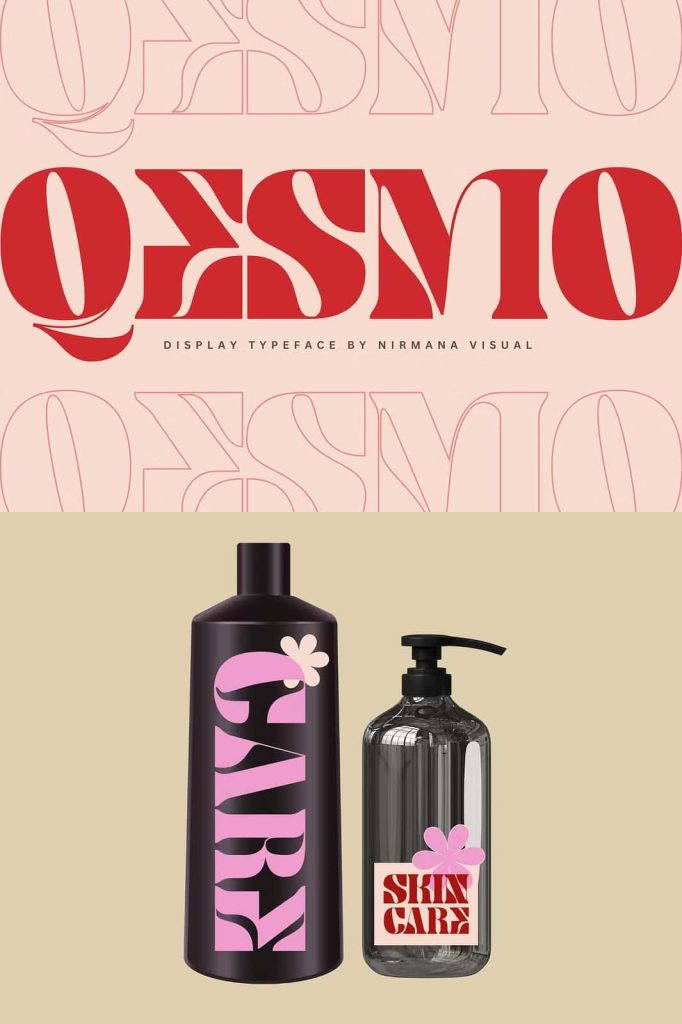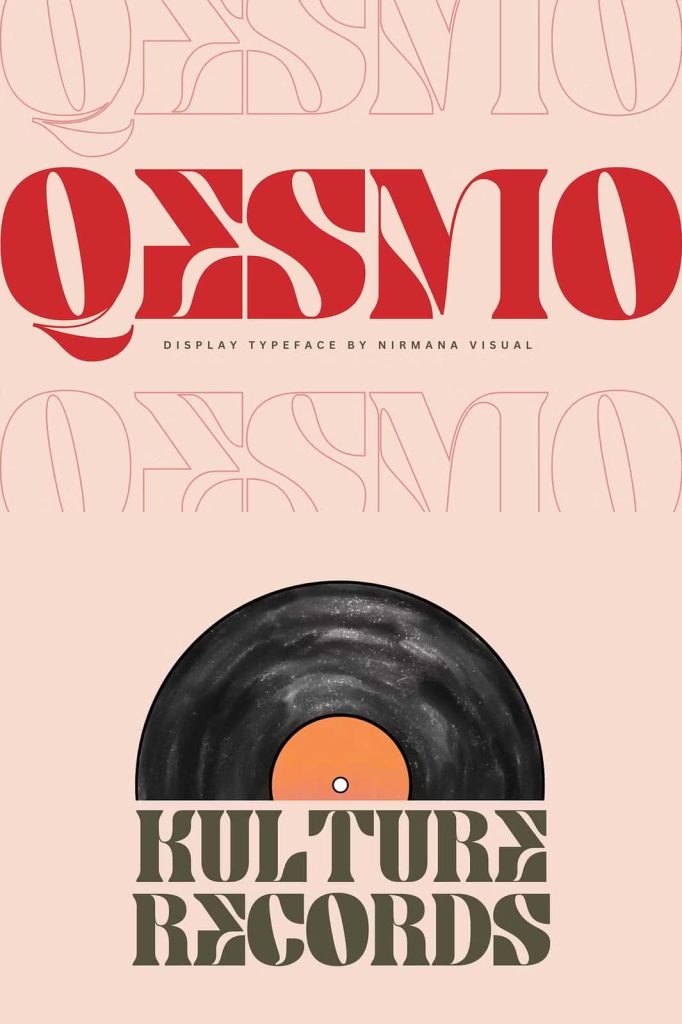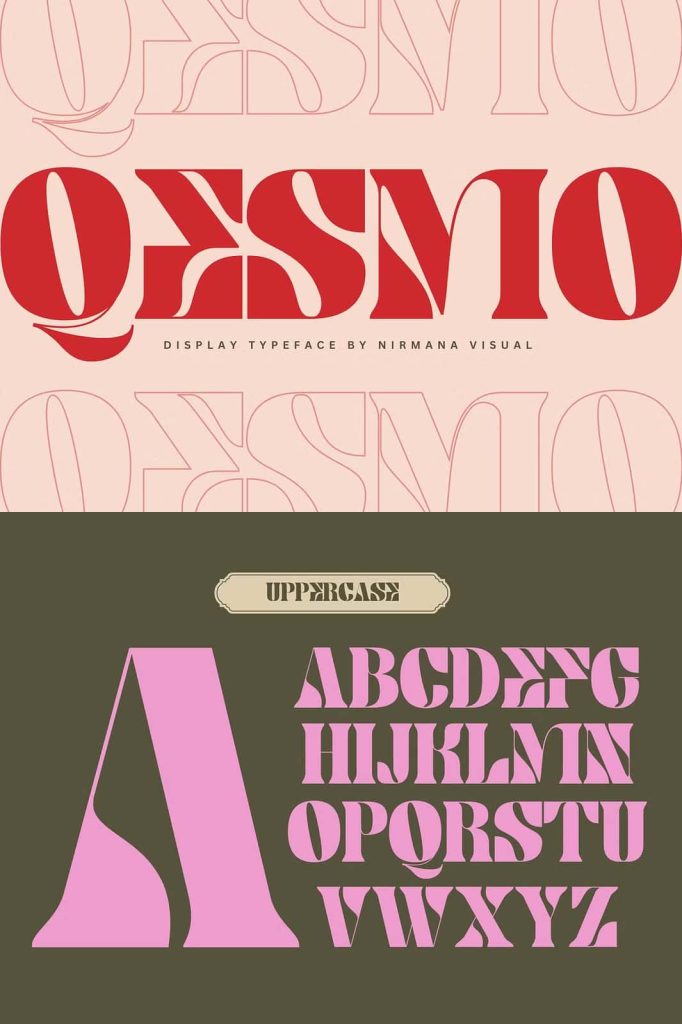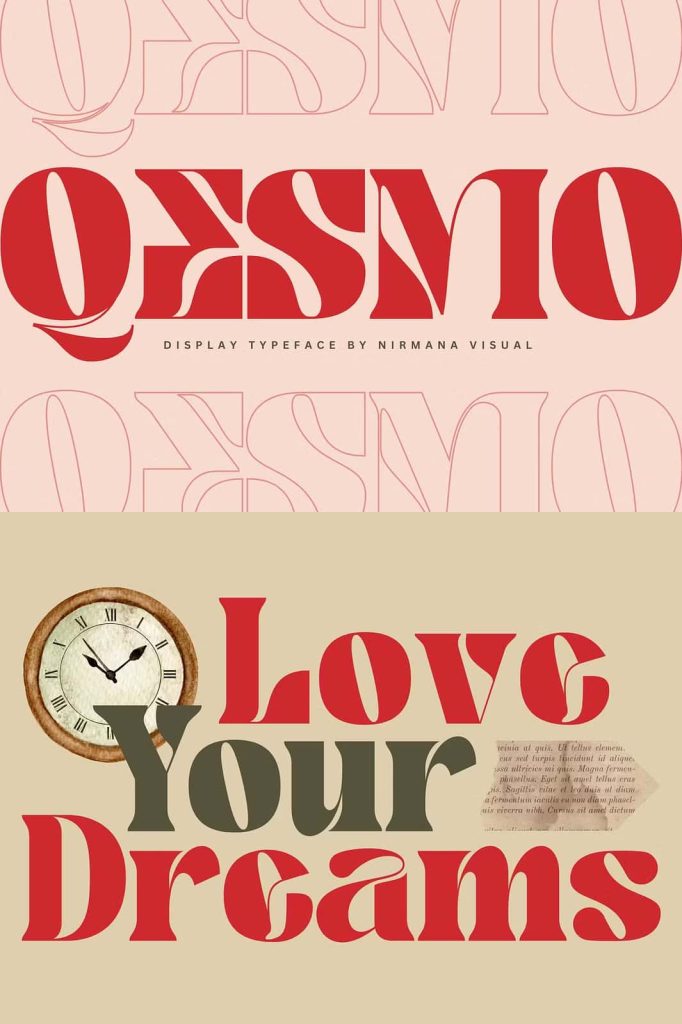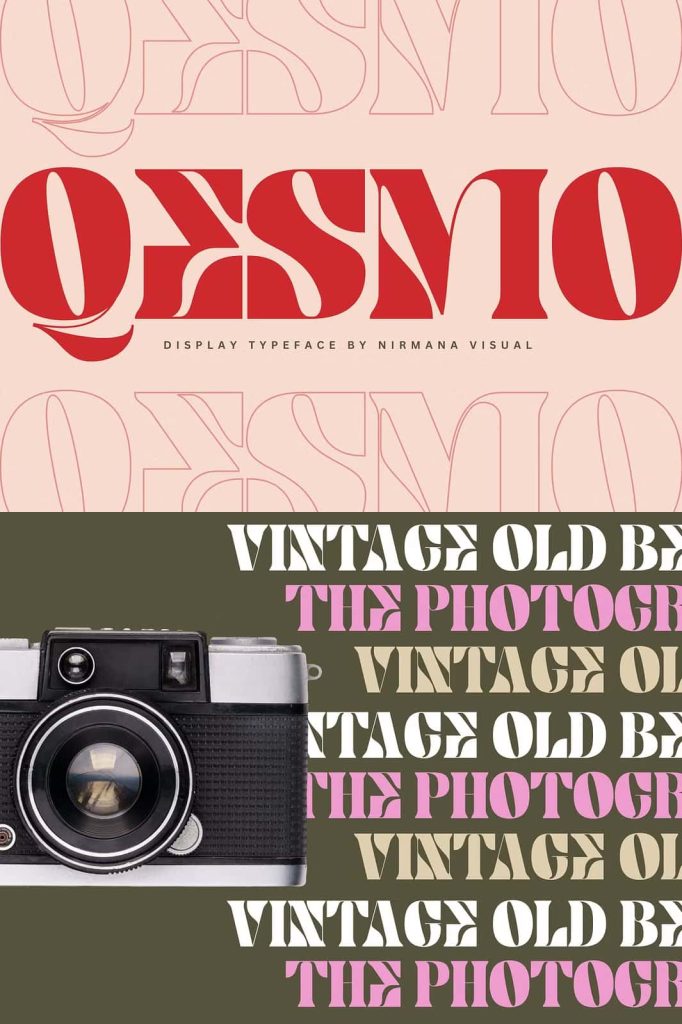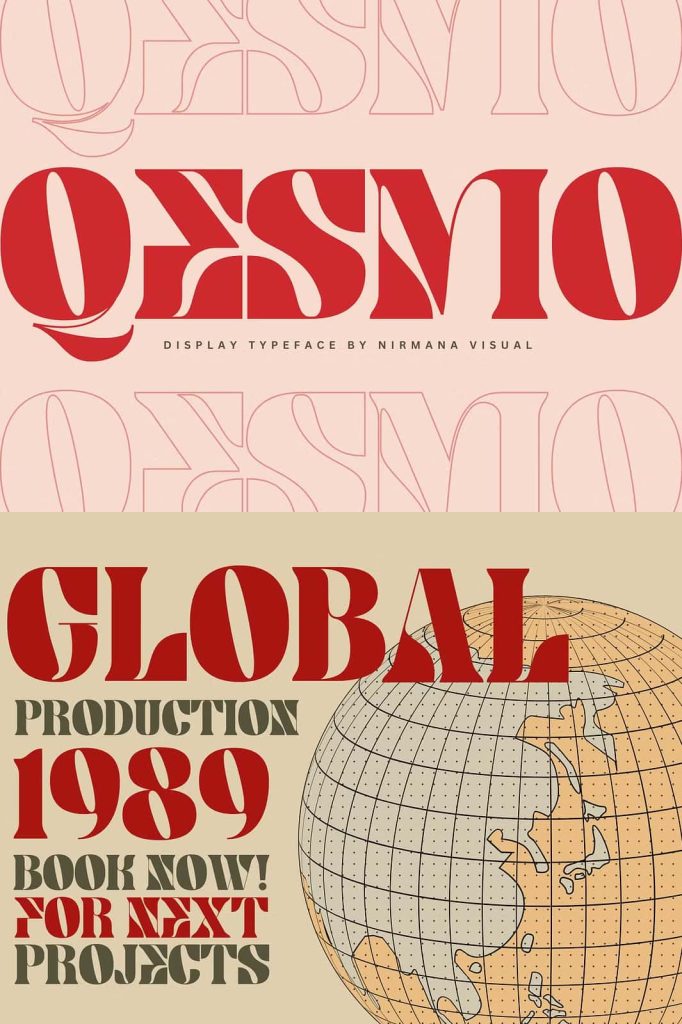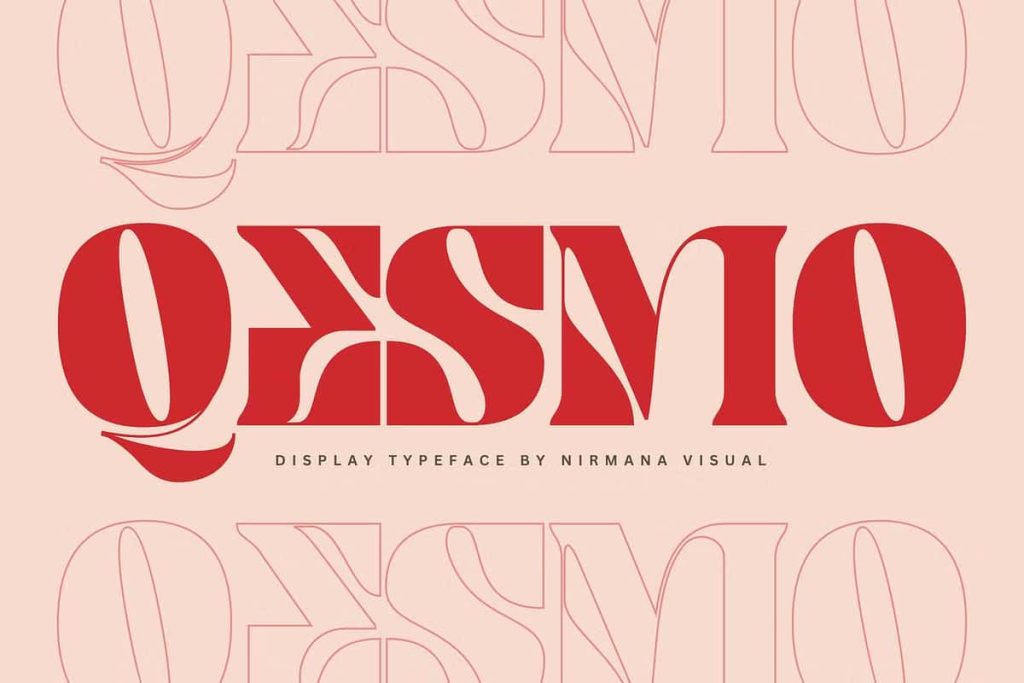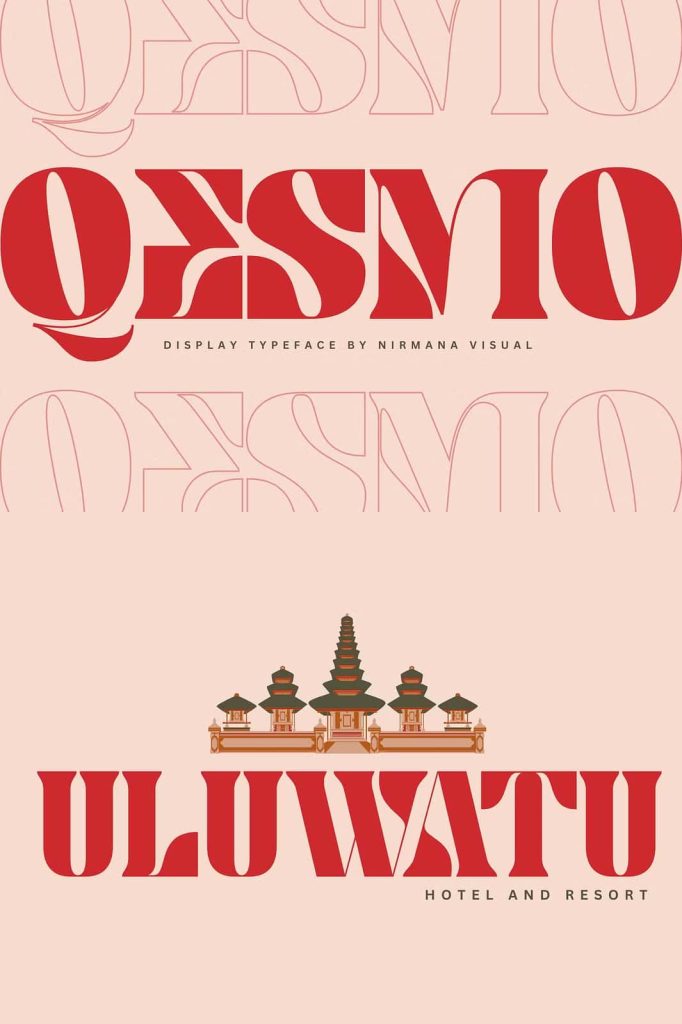
Retro Qesmo – Logo Bold Font
Retro Qesmo Font offers beautiful typographic harmony for a diversity of design projects, including logos & branding, social media posts, advertisements & product designs.
Retro Qesmo – Logo Bold Font
Retro Qesmo Font offers beautiful typographic harmony for a diversity of design projects, including logos & branding, social media posts, advertisements & product designs.